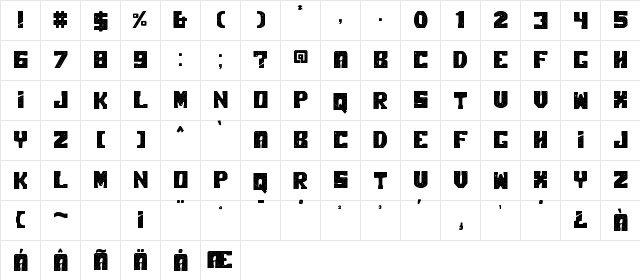
Polar Press Rough
| Style | Rough |
| Foundry | Attype Studio |
| Designer | Fadli Ramadhan Iskandar - Attype Studio |
Design Context for Polar Press Typeface
Polar Press embraces imperfection — its rough, textured character adds raw authenticity to designs that want to feel lived-in and unconventional.
Suited to punk-influenced zines, underground music branding, streetwear, and raw, anti-corporate design.